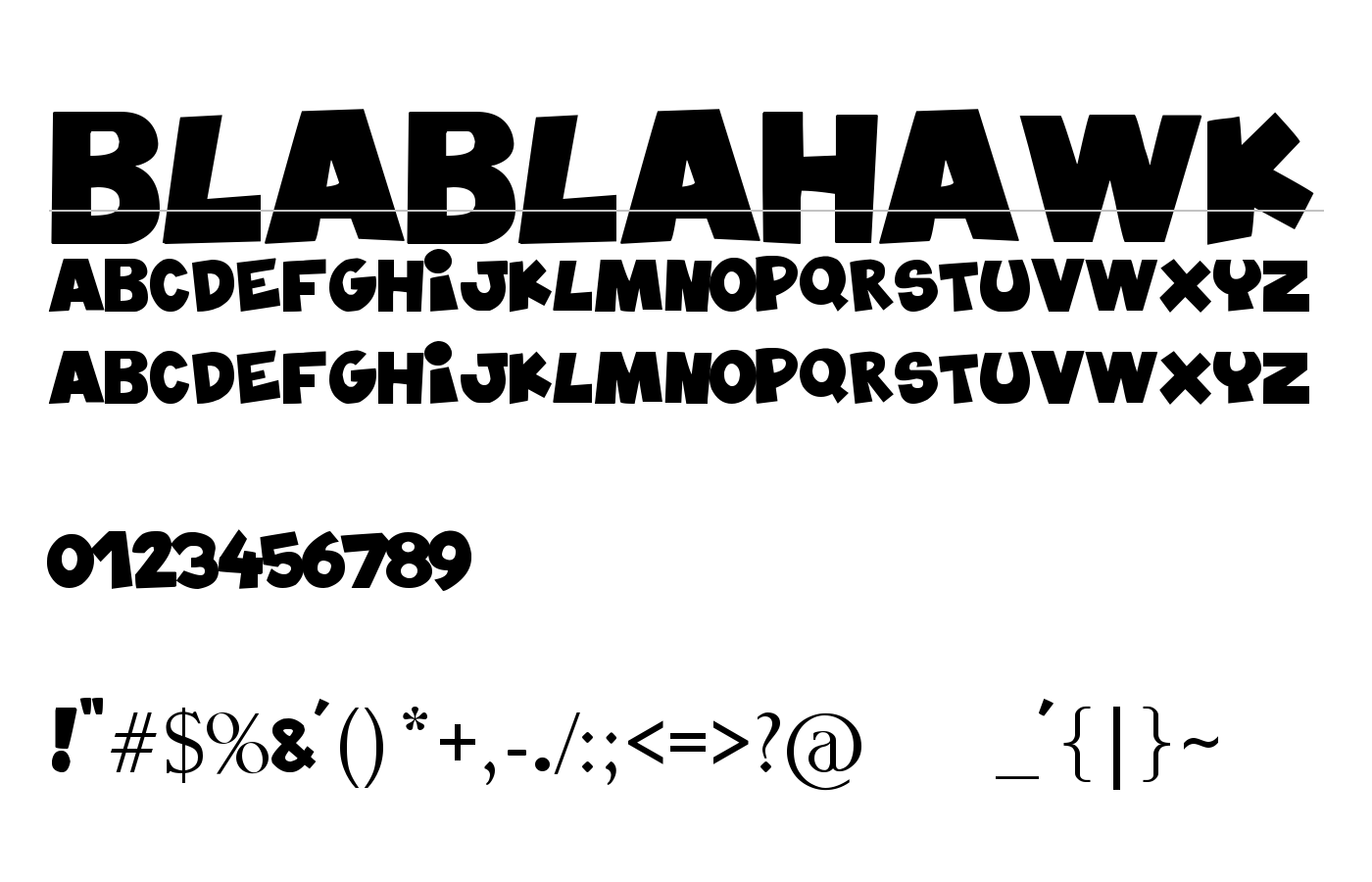
BlablaHawk is a bold, playful sans serif font with a chunky, irregular style that exudes fun and energy. Its quirky letter forms and strong presence make it ideal for eye-catching headlines, logos, and creative projects targeting youthful or informal audiences. This font works best when you want to add a whimsical and lively personality to posters, branding, or children's materials.
BlablaHawk Font
About BlablaHawk Font